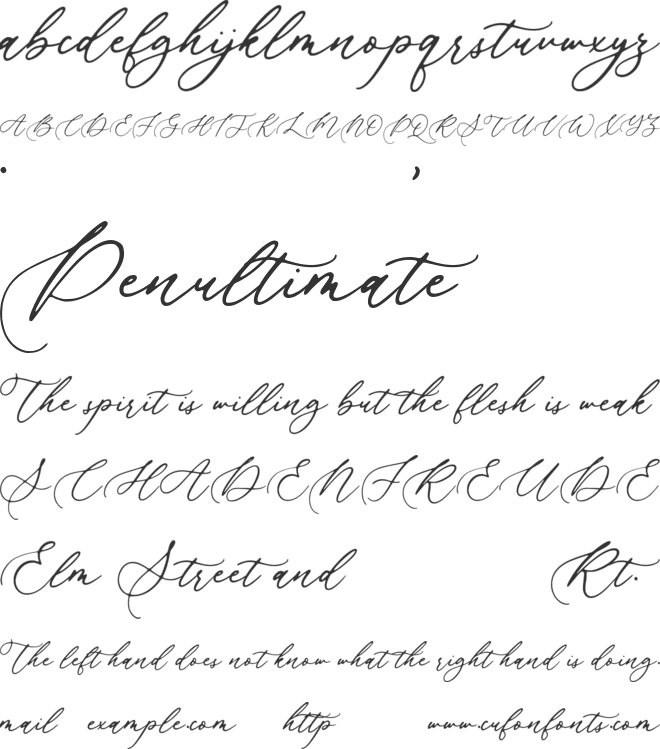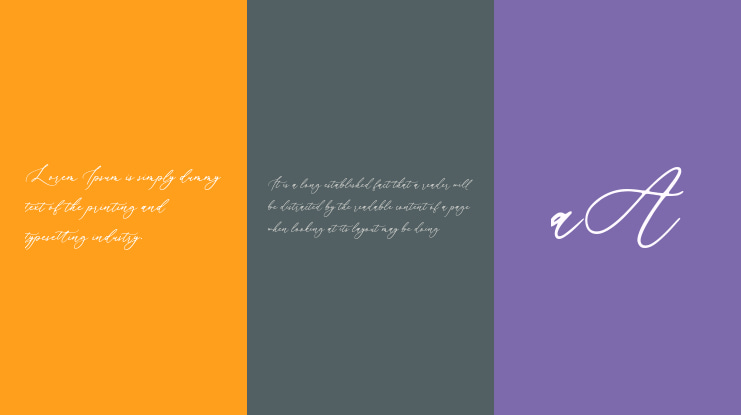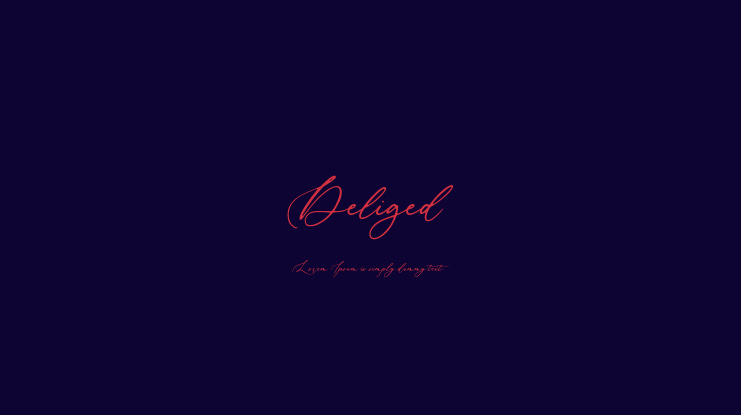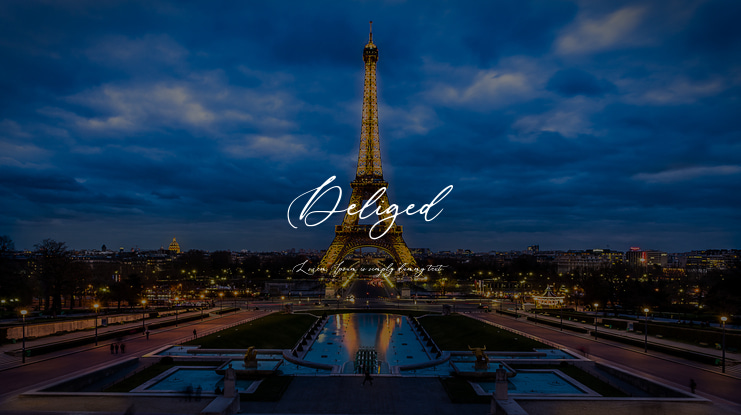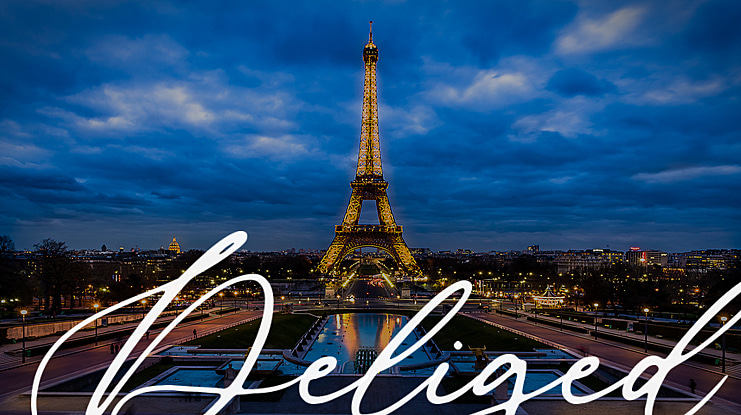
Deliged Font
Deliged Script Font is a sweet and cute handwritten font. Fall in love with its incredibly versatile style and use it to create gorgeous wedding invitations, beautiful stationary art, eye-catching social media posts, and much more! This font is PUA encoded, which means you can access all of the glyphs and swashes with ease!
– Uppercase, Lowercase, Numeral & Punctuation
– Alternate Letters, Ligature & Swash/Tail
– Multilingual & PUA Encoded